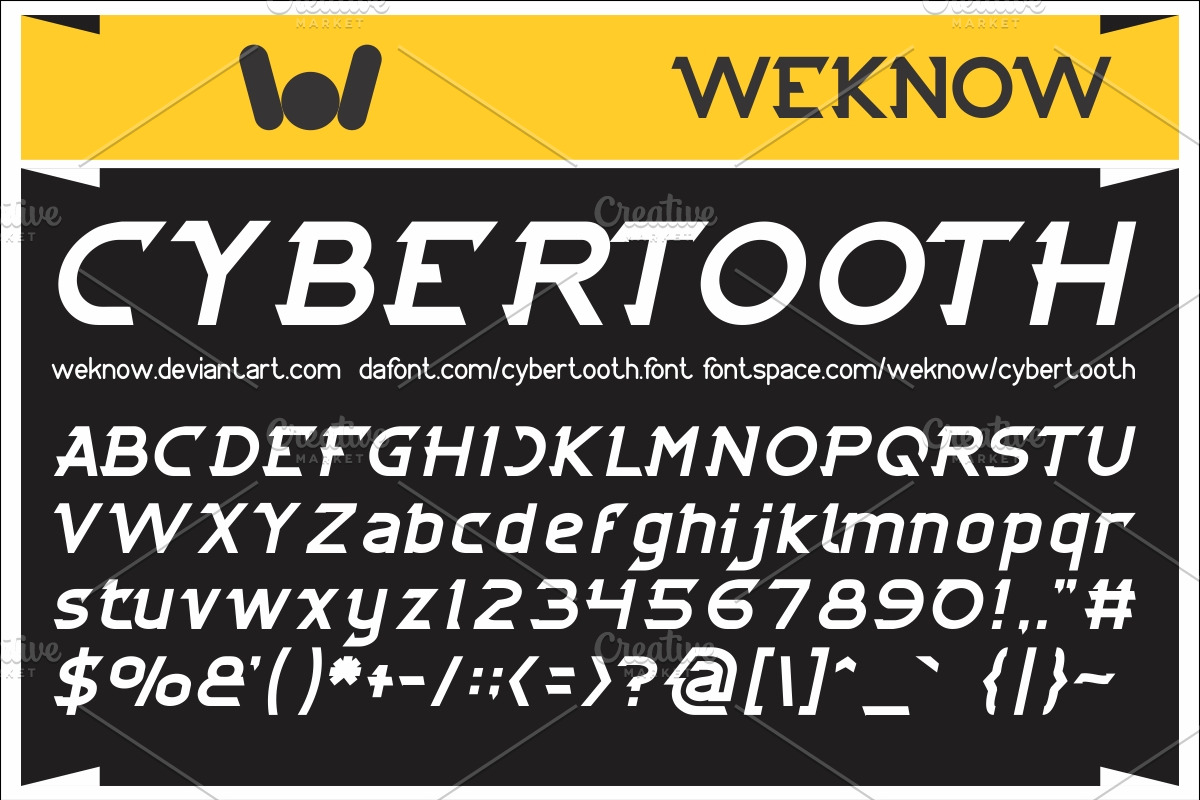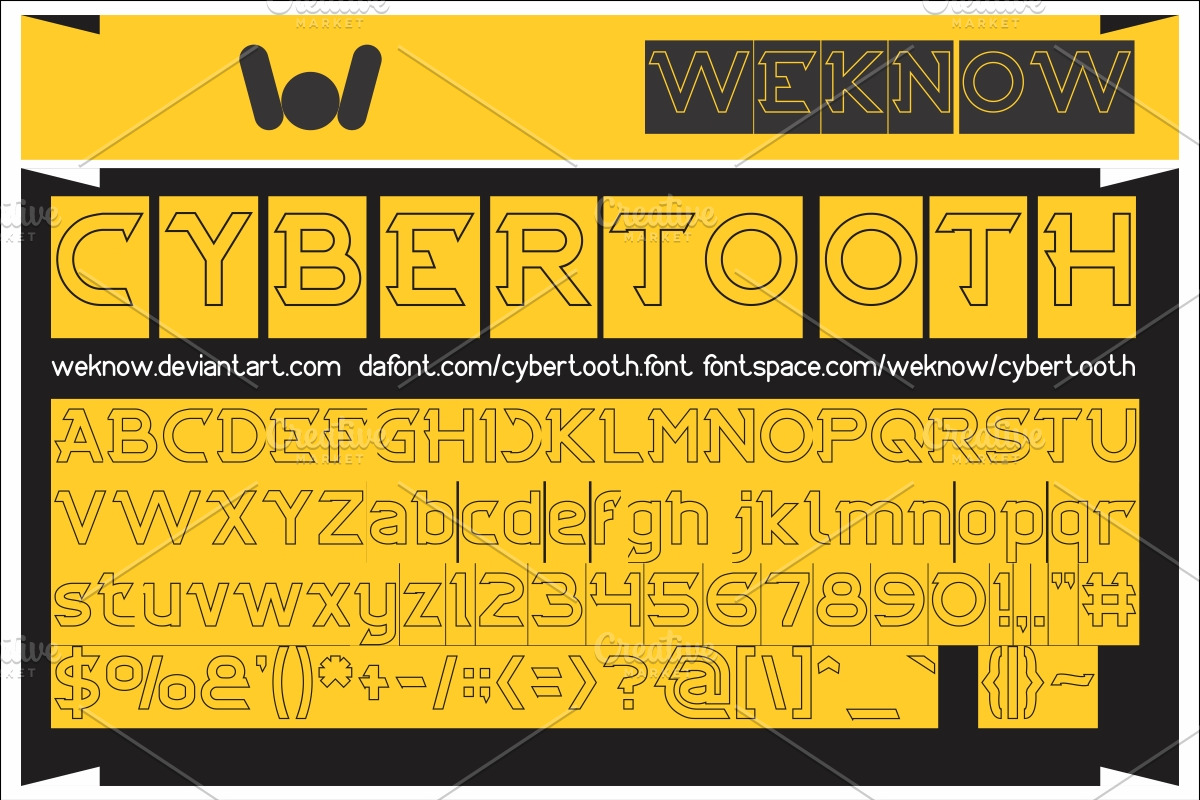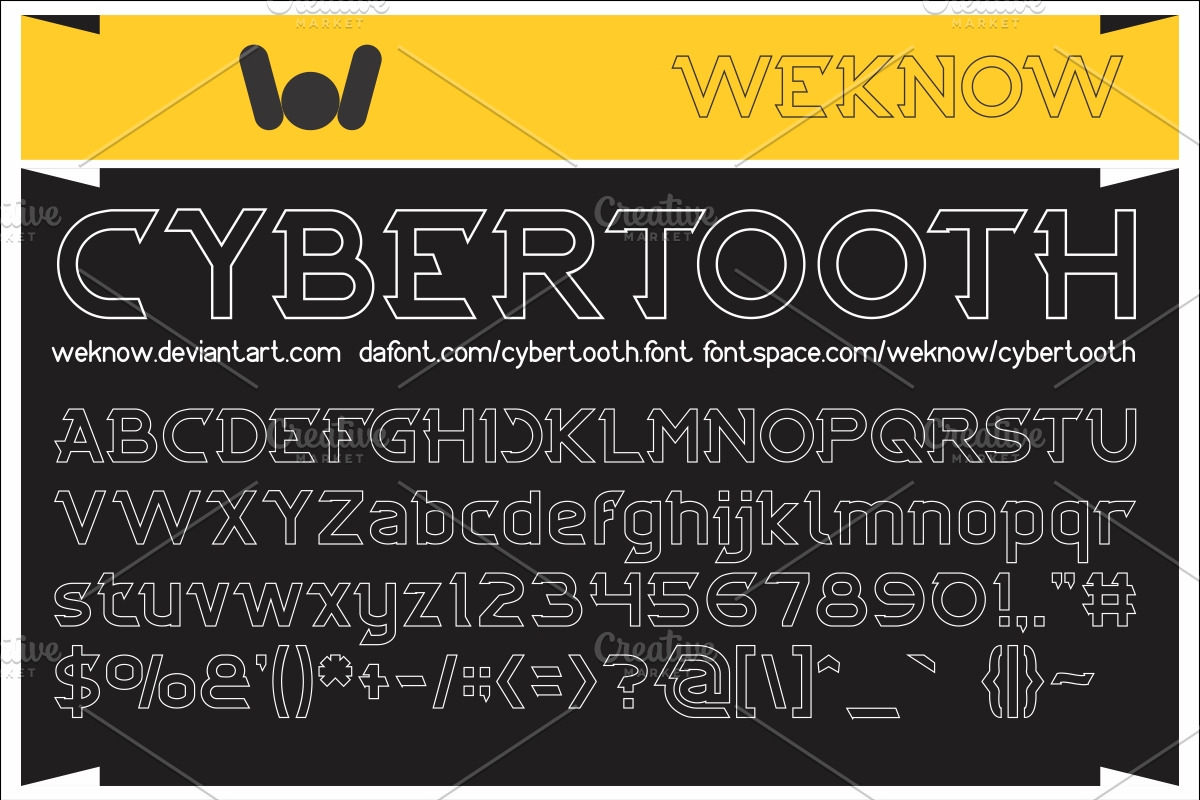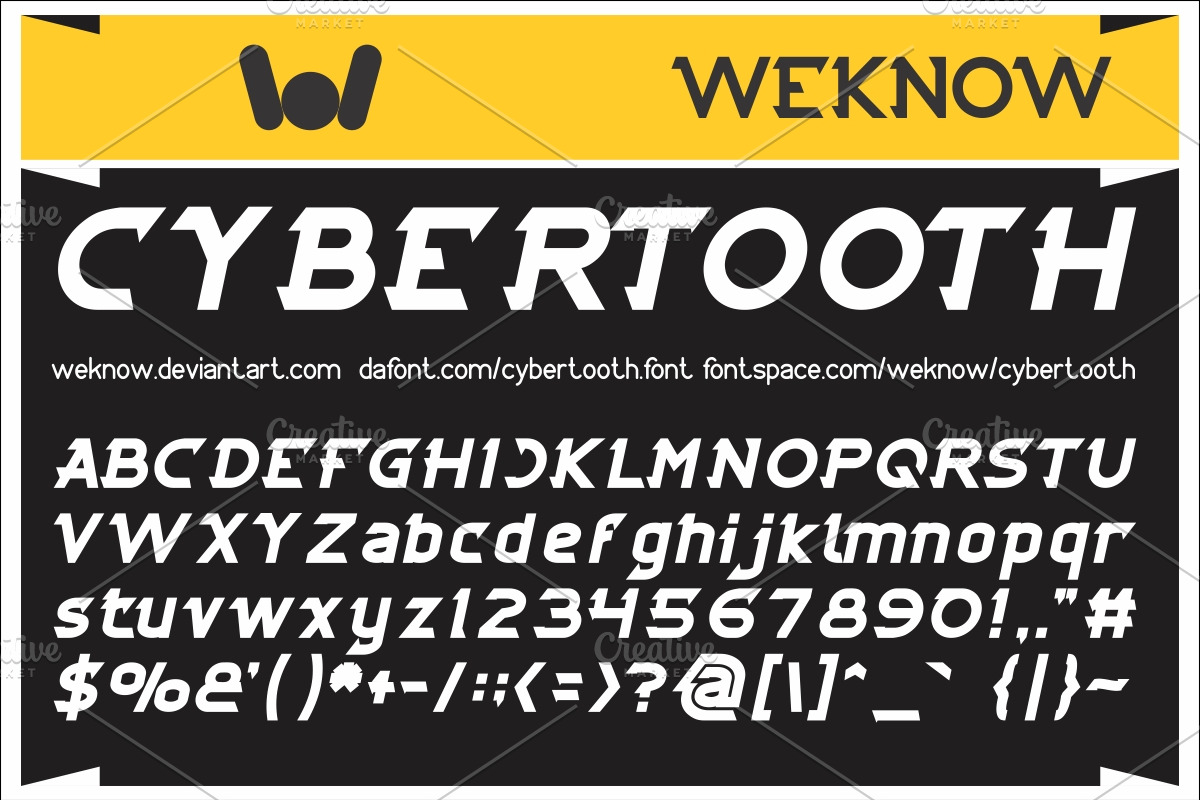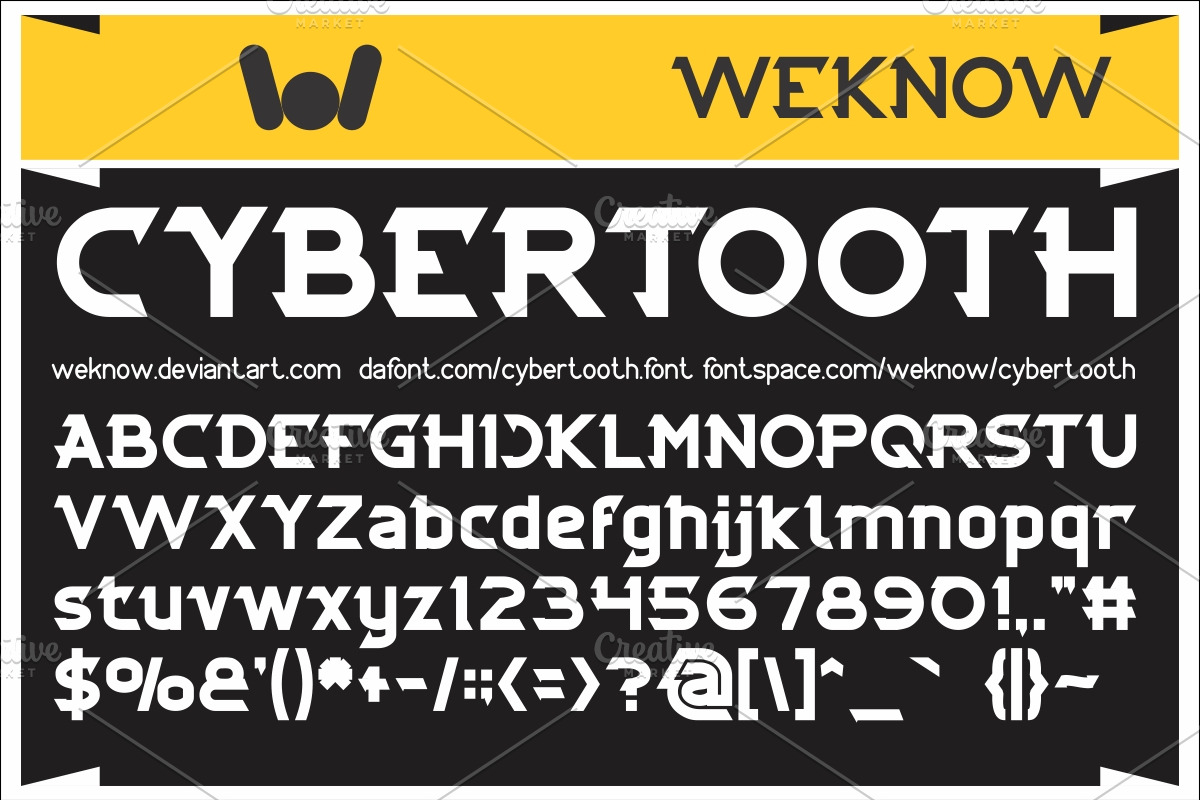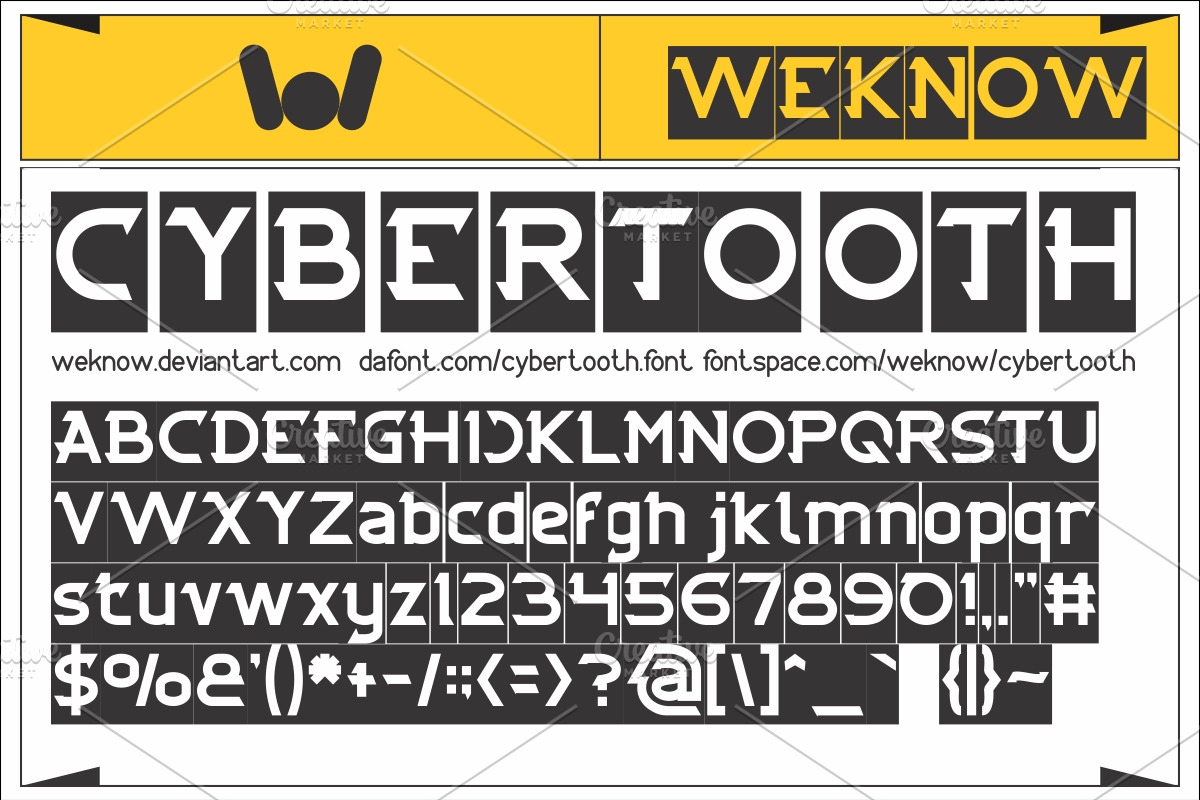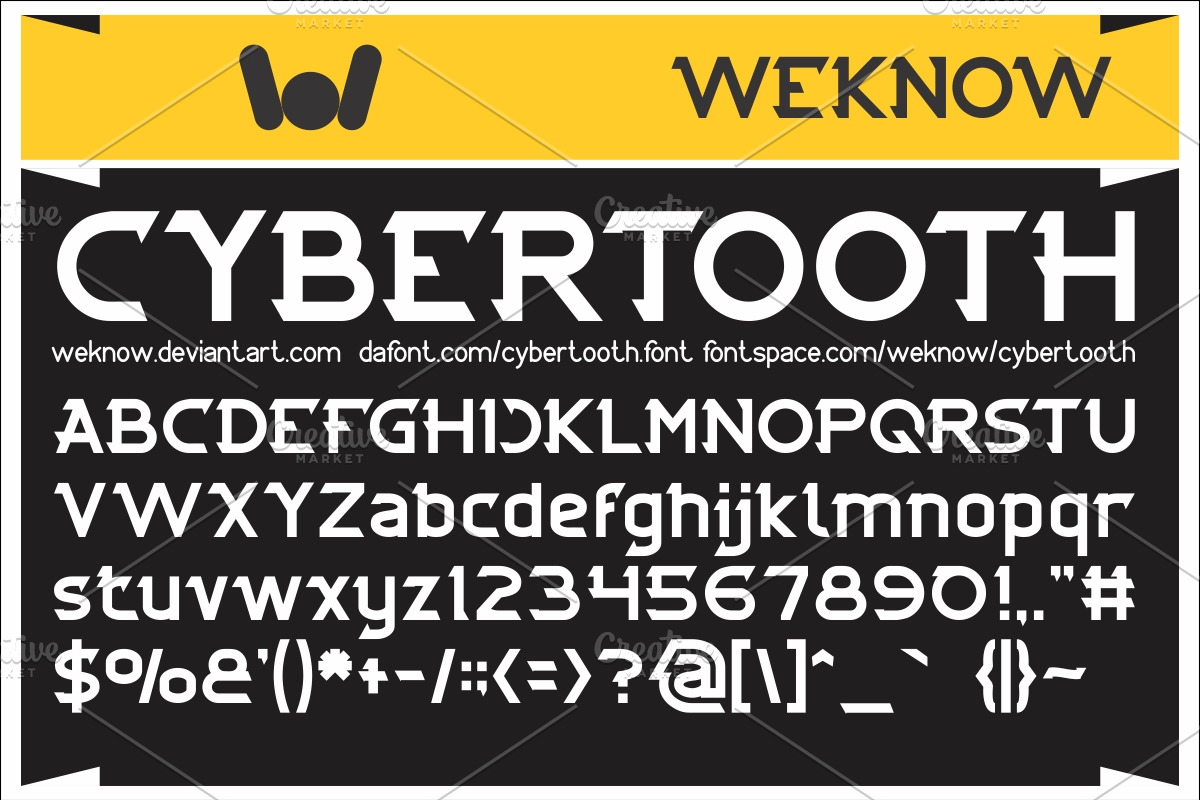
cybertooth font
available style: CYBERTOOTH, CYBERTOOTH-Bold, CYBERTOOTH-Bold-Italic, CYBERTOOTH-Hollow, CYBERTOOTH-Hollow-Inverse, CYBERTOOTH-Italic, CYBERTOOTH-Light
Why cybertooth font is worth a look
cybertooth font by weknow fits naturally into Branding, posters, packaging, typography.